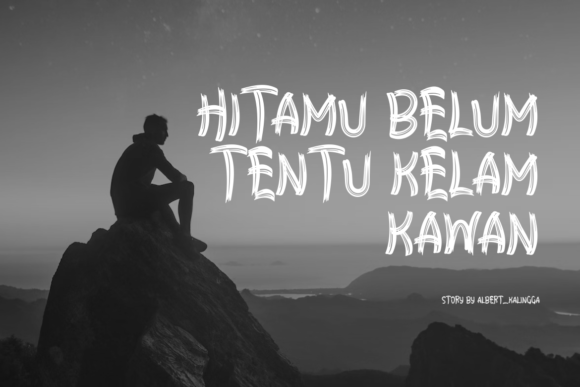
Introducing Black Bholed Font: The Sweet and Friendly Handwritten Brush Font
Are you looking for a font that can add a personal touch to your designs? Do you want to create a unique and eye-catching visual identity for your brand? Look no further than Black Bholed Font, a sweet and friendly handwritten brush font that is sure to impress. In this article, we’ll take a closer look at Black Bholed Font, its features, and how it can be used to elevate your designs.
What is Black Bholed Font?
Black Bholed Font is a handwritten brush font that is designed to be both sweet and friendly. Its natural and unique style makes it incredibly fitting to a large pool of designs, from rustic and vintage to modern and trendy. The font is perfect for adding a personal touch to your designs, whether you’re creating a logo, branding materials, or marketing collateral.
Features of Black Bholed Font
So, what makes Black Bholed Font so special? Here are some of its key features:
- Handwritten brush style: Black Bholed Font has a natural, handwritten look that is achieved through its brush-style strokes. This gives the font a unique and organic feel that is perfect for creating a personal connection with your audience.
- Sweet and friendly: The font has a sweet and friendly tone that is sure to appeal to a wide range of audiences. Whether you’re targeting children or adults, Black Bholed Font is sure to delight.
- Unique and versatile: Black Bholed Font is incredibly versatile and can be used in a variety of design contexts. From logos and branding materials to posters and social media graphics, the font can be used to create a wide range of designs.
- Easily readable: Despite its handwritten style, Black Bholed Font is easily readable, even at small sizes. This makes it perfect for use in body text, as well as headings and titles.
Uses of Black Bholed Font
So, how can you use Black Bholed Font in your designs? Here are some ideas to get you started:
- Logos and branding materials: Black Bholed Font is perfect for creating logos and branding materials that are unique and eye-catching. Use it to create a memorable brand identity that stands out from the crowd.
- Posters and flyers: The font is also great for creating posters and flyers that need to grab attention. Use it to create bold and eye-catching headlines that draw in your audience.
- Social media graphics: Black Bholed Font is perfect for creating social media graphics that are engaging and shareable. Use it to create Facebook posts, Instagram stories, and Twitter headers that stand out from the crowd.
- Packaging design: The font can also be used in packaging design to create labels and packaging materials that are unique and eye-catching.
Tips for Using Black Bholed Font
Here are some tips for using Black Bholed Font in your designs:
- Use it sparingly: While Black Bholed Font is a beautiful font, it can be overwhelming if used too much. Use it sparingly to create emphasis and draw attention to key elements in your design.
- Pair it with other fonts: Black Bholed Font can be paired with other fonts to create a unique and interesting visual identity. Try pairing it with a sans-serif font for a bold and modern look.
- Experiment with colors: The font looks great in a variety of colors, so don’t be afraid to experiment and find the perfect color scheme for your design.
- Pay attention to spacing: Make sure to pay attention to spacing and kerning when using Black Bholed Font. This will help ensure that your text is easily readable and visually appealing.
Black Bholed Font is a sweet and friendly handwritten brush font that is perfect for adding a personal touch to your designs. Its natural and unique style makes it incredibly fitting to a large pool of designs, and its versatility makes it a great choice for a wide range of design contexts. Whether you’re creating logos and branding materials, posters and flyers, or social media graphics, Black Bholed Font is sure to impress. So why not give it a try and see the difference it can make in your designs?